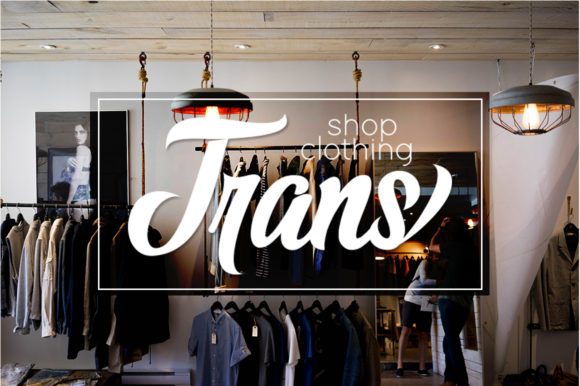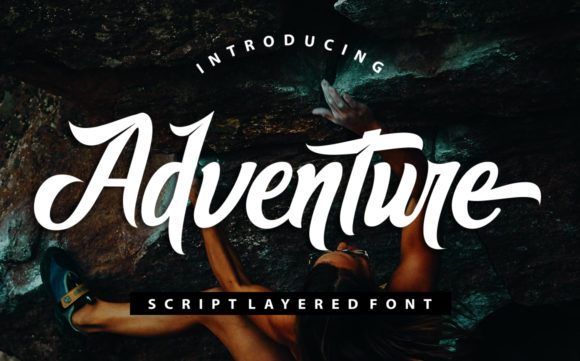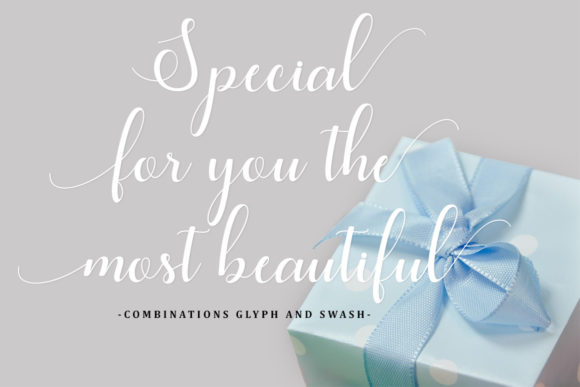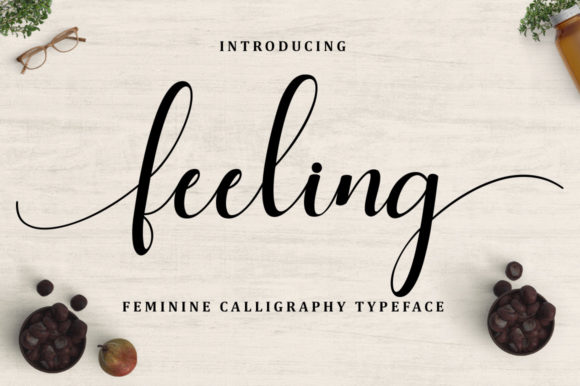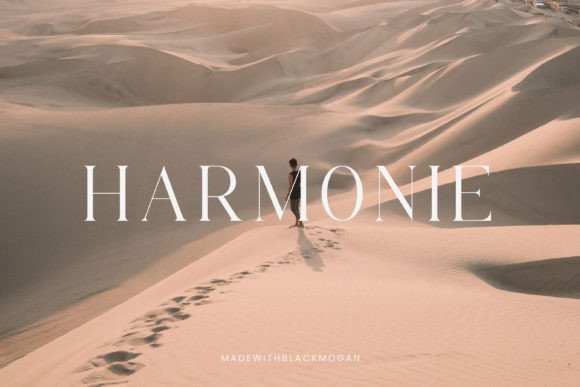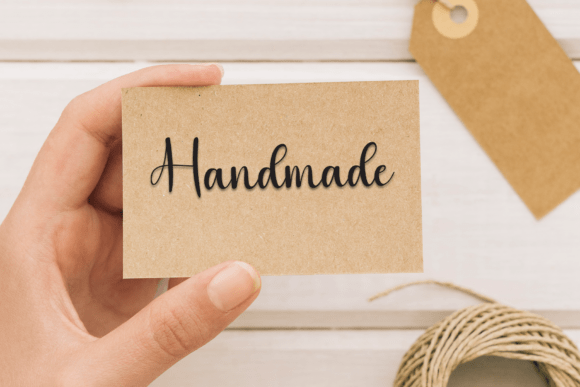
About Wedding Font
As a designer, I see Script Fonts as one of the most expressive tools in visual storytelling. I use them when I want a design to feel personal, elegant, or emotionally warm. Script fonts work beautifully for branding, logos, wedding materials, social media graphics, packaging, quotes, and lifestyle projects where tone matters as much as readability. I appreciate how a well-made script font mimics natural handwriting while staying balanced and clear. The biggest advantage is atmosphere — script fonts instantly add character, softness, and personality, helping designs feel less mechanical and more human. Understanding the significance of the About Wedding Font is essential when choosing fonts for your projects, especially when focusing on the About Wedding Font.
When discussing design elements, the About Wedding Font deserves special attention due to its emotional impact.
Wedding Font
When choosing fonts for your projects, understanding the significance of different styles is essential. This includes the significance of the About Wedding Font, which plays a crucial role in creating a unique and memorable aesthetic for any wedding-related material, ultimately highlighting the importance of the About Wedding Font.
The About Wedding Font is vital for any design focusing on weddings, ensuring that the aesthetic fits the occasion perfectly.
I enjoy working with this Wedding Script Font because it feels elegant, warm, and naturally expressive. The flowing strokes and smooth curves give my designs a handwritten charm without looking messy. I use it for wedding invitations, logos, branding, packaging, apparel, and social media quotes when I want a refined yet personal look. One of its biggest strengths is balance — it’s decorative enough to stand out, but still easy to read. This script font helps my projects feel romantic, modern, and thoughtfully crafted, especially when elegance really matters.
Adventure Font
I like using the Adventure Font when I want my designs to feel bold, energetic, and full of character. The layered style instantly adds depth and movement, making it perfect for logos, T-shirts, posters, and branding projects that need to stand out. I enjoy how playful yet strong it feels, especially for youth-focused or outdoor-inspired designs. One big advantage is its versatility — the layers let me experiment with colors and textures easily. This font helps my work feel dynamic, confident, and ready for adventure.
Feeling Font
I enjoy using the Feeling Font when I want my designs to express emotion, softness, and personality. Its gentle curves and natural flow give my projects a warm, human touch, making it perfect for quotes, social media posts, journals, branding, and heartfelt messages. I like how it feels expressive without being overwhelming, keeping everything readable and balanced. One big advantage is its versatility — it works beautifully in both minimal and decorative layouts. This font helps my designs feel sincere, inviting, and emotionally connected.
Beautiful Font
I love using the Beautiful Font when I want my designs to feel elegant, romantic, and timeless. The flowing script and classic calligraphy details give my work a refined, graceful look without feeling outdated. I often choose it for wedding invitations, headlines, branding, quotes, packaging, and decorative print projects. One of its strongest advantages is flexibility — it looks stunning at both large and small sizes across digital and print designs. This font helps my projects feel polished, expressive, and visually memorable.
Black Mogan  Font
I enjoy working with the Black Mogan Font when I want my designs to feel modern, elegant, and confident. The serif style looks refined and stylish, with just enough contrast to stand out without feeling heavy. I often use it for branding, logos, posters, T-shirts, photography overlays, quotes, and wedding invitations. The alternates and ligatures are a real advantage — they let me customize headlines and make each design feel more unique. This font helps my projects look polished, balanced, and visually sophisticated.
In conclusion, script fonts give designers a powerful way to communicate emotion and personality through typography. When chosen carefully, they create a natural flow that feels inviting rather than decorative. Script fonts help transform simple layouts into meaningful visual experiences, adding warmth, elegance, and authenticity. Used with balance, they elevate designs and leave a lasting impression that feels thoughtful and human.